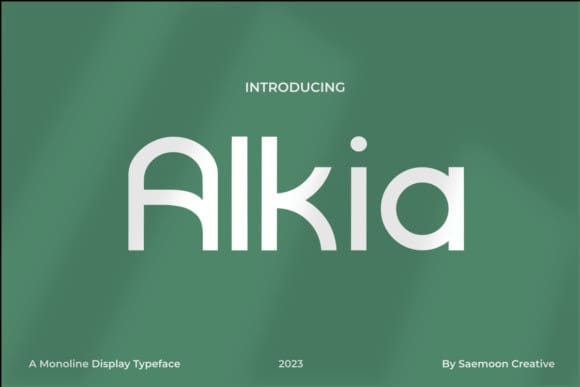
Alkia Font
Alkia Font is a balanced and stylish sans-serif font that exudes contemporary sophistication. With clean lines and subtle curves, it offers clarity and elegance to any design project. Perfect for branding, editorial content, and modern layouts, Vitras strikes a harmonious balance between professionalism and creativity, ensuring visual appeal and readability.